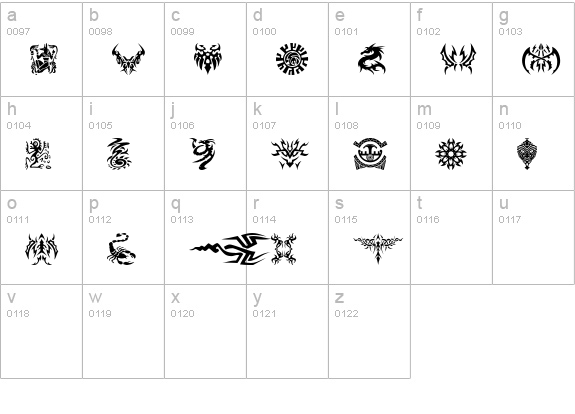
Introducing the mesmerizing Tattoo font, a captivating typeface that is sure to leave a lasting impression. Designed with intricate details and artistic flair, this font embodies the essence of the tattoo culture, making it the perfect choice for anyone seeking to add a touch of edginess and individuality to their designs. With its bold and daring strokes, the Tattoo font exudes a sense of confidence and rebellion. Each letter is meticulously crafted, showcasing the beauty and diversity that can be found within the art of tattooing. From delicate swirls to bold lines, this font captures the essence of various tattoo styles, allowing you to bring a unique and personal touch to your projects. But what makes the Tattoo font even more enticing is that it is freely available to download at FontsMarket.com. Yes, you read that right – this stunning font can be yours without any cost. Whether you're a professional designer or simply someone looking to add a touch of creativity to your personal projects, the Tattoo font offers you the freedom to express yourself without any limitations. So why wait? Unleash your inner artist and let the Tattoo font breathe life into your designs. Whether you're creating a logo, a poster, a tattoo design, or any other creative endeavor, this font will undoubtedly make a striking statement. Download the Tattoo font for free at FontsMarket.com and embark on a journey of self-expression and boldness like never before.